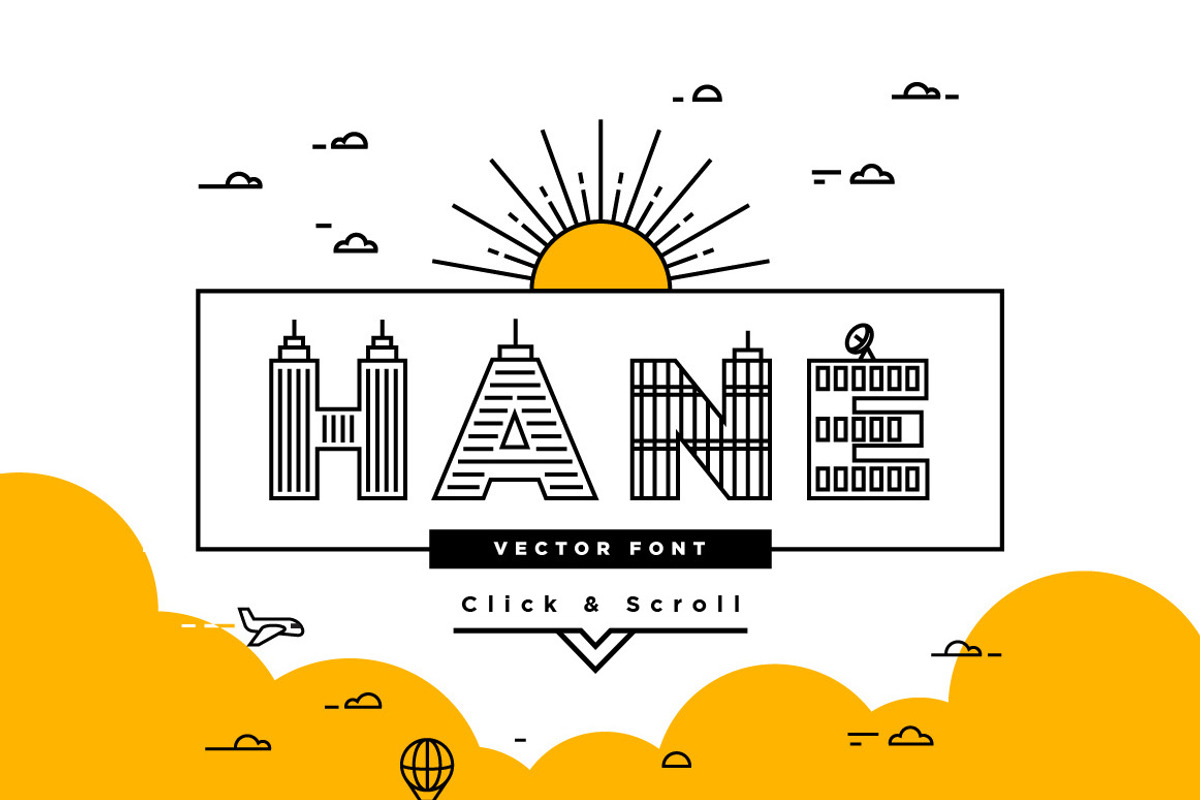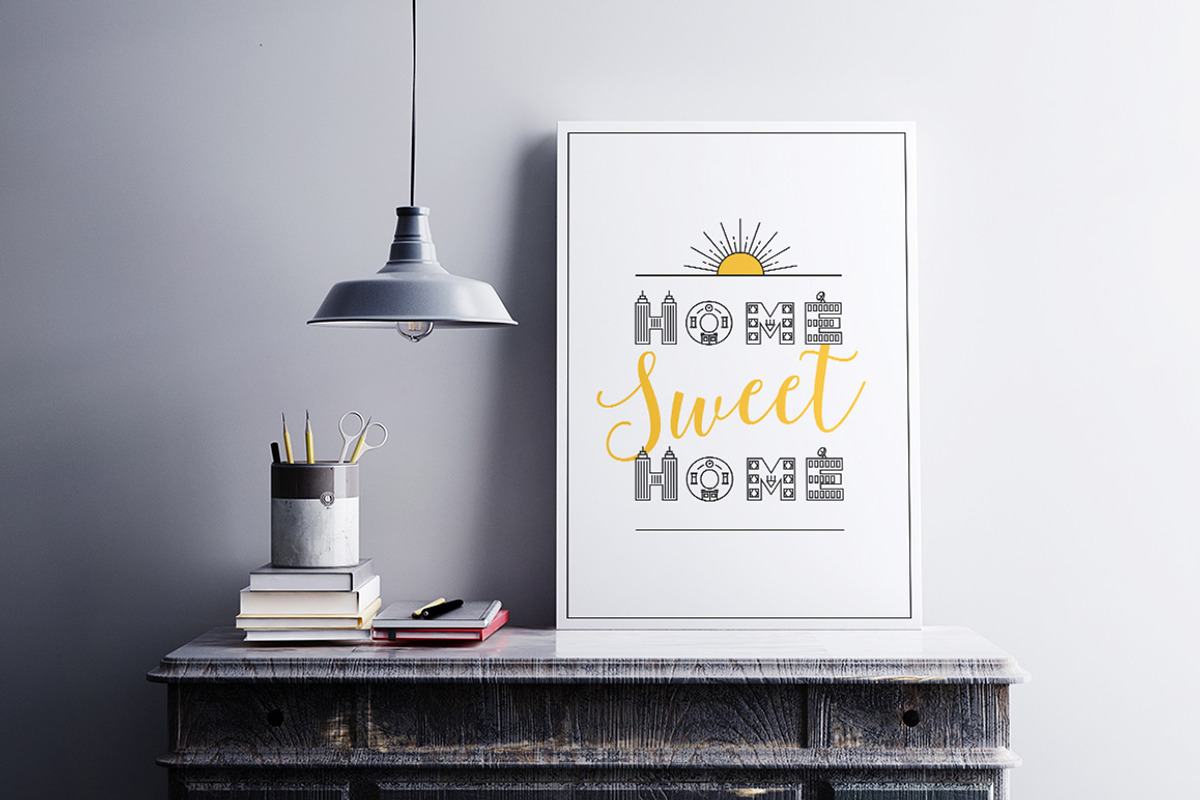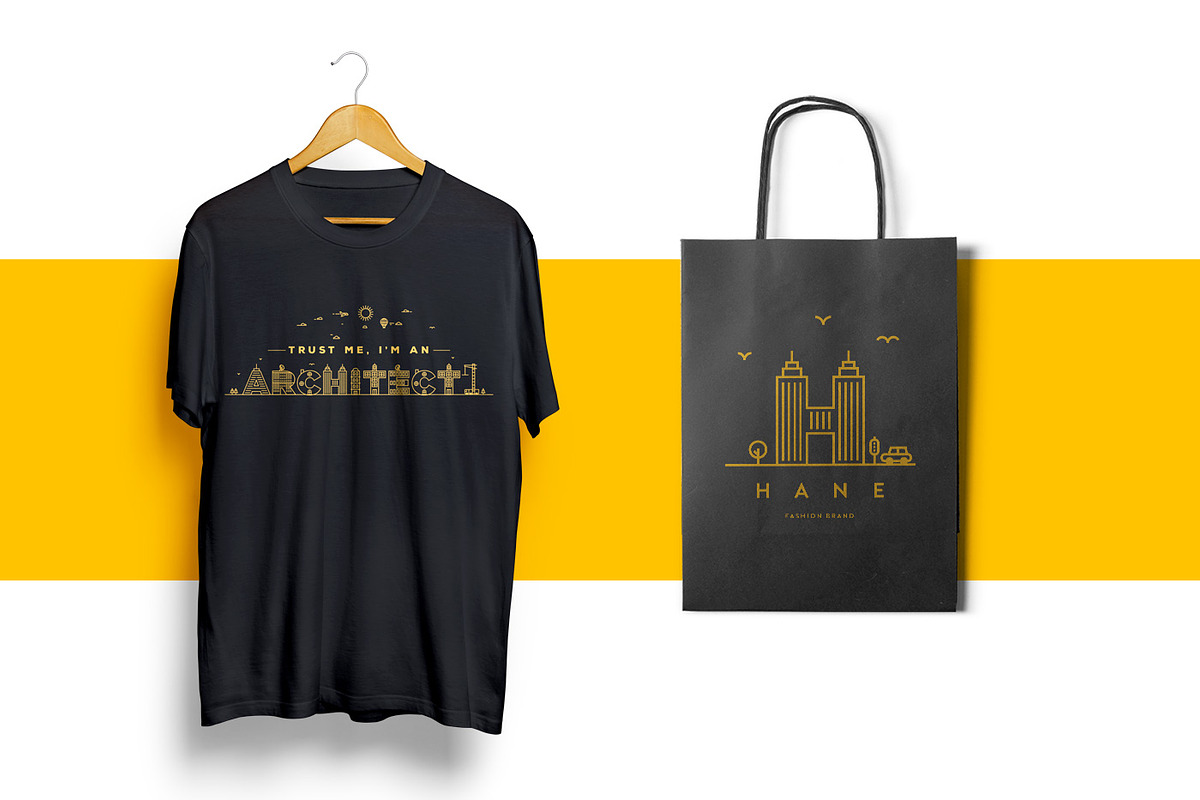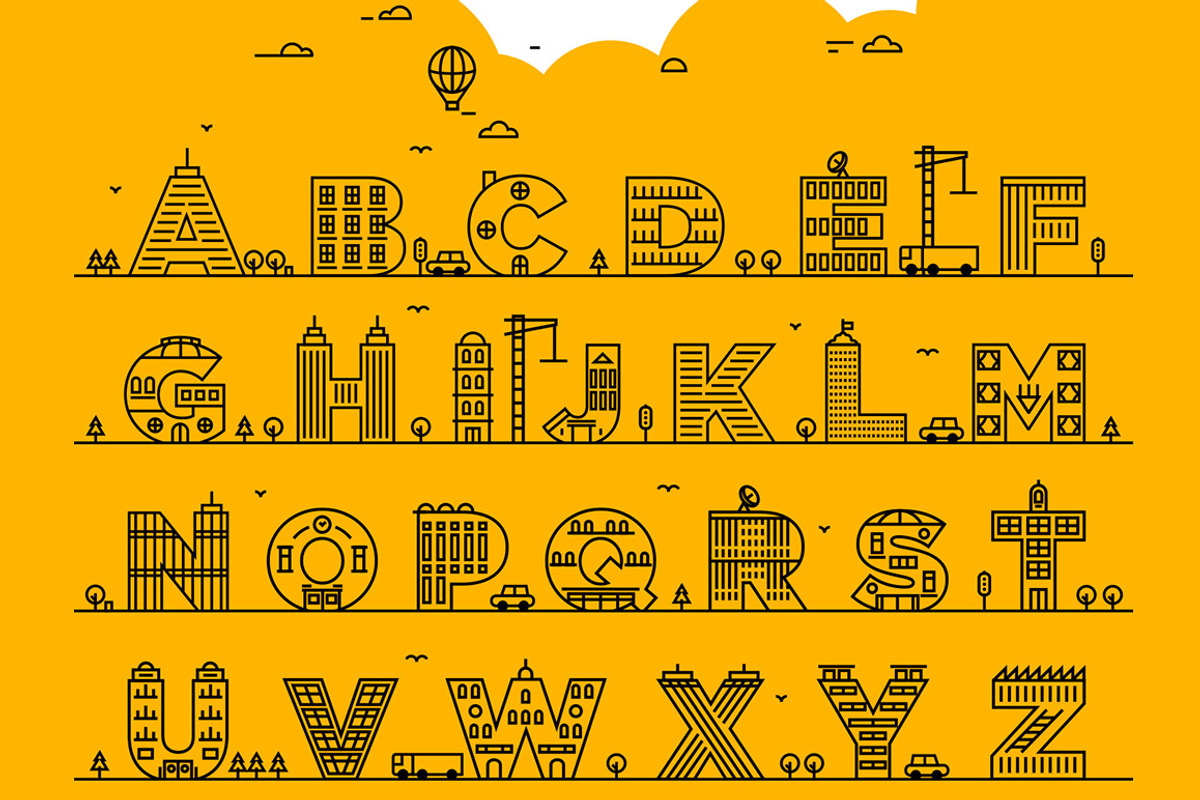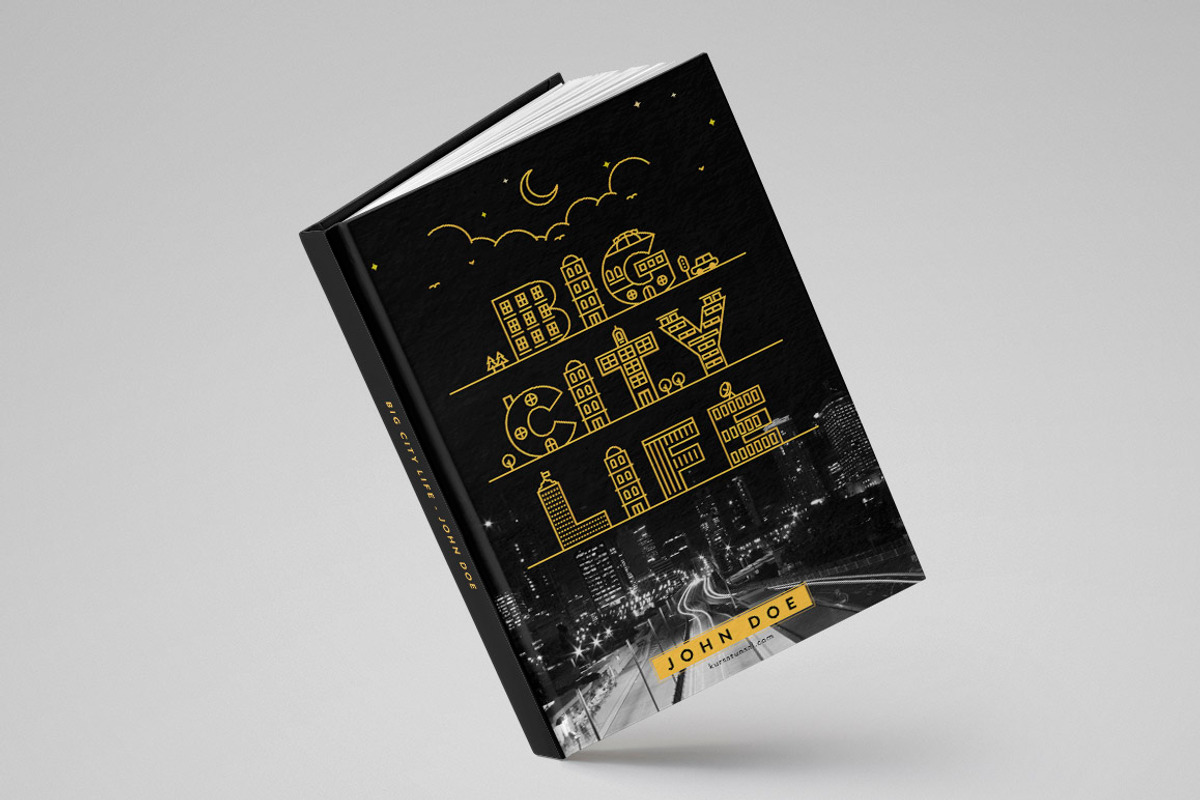
Hane Vector Typeface
Hane Vector Typeface by Kursat Unsal is a font selected for branding, posters, packaging, typography.
- Also package includes city design elements.
Hane Vector Typeface by Kursat Unsal fits naturally into Branding, posters, packaging, typography.